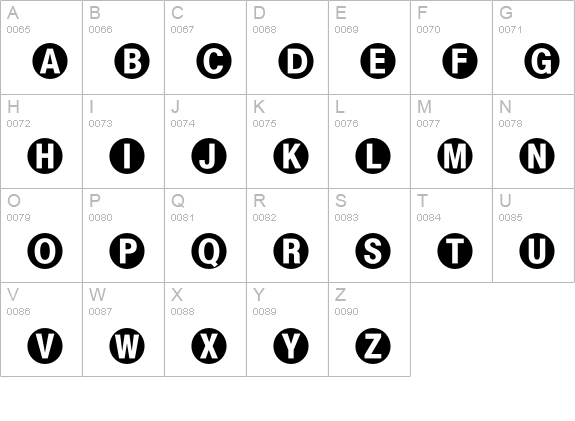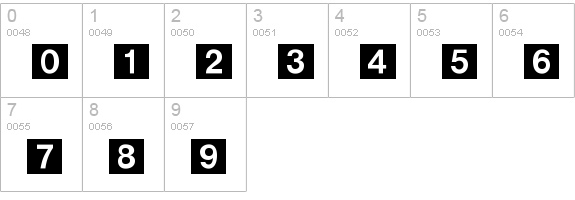
Bundesbahn Pi Std 1 is a sleek and modern font that exudes professionalism and sophistication. With its clean lines and sharp edges, this typeface is perfect for creating a bold and impactful visual presence. Whether you're designing a logo, a website, or a marketing campaign, Bundesbahn Pi Std 1 will elevate your project to the next level. Best of all, Bundesbahn Pi Std 1 is available for free download at FontsMarket.com. This means you can add this stunning font to your collection without breaking the bank. Don't miss out on the opportunity to enhance your designs with the elegance and style of Bundesbahn Pi Std 1. Download it today and take your creativity to new heights!